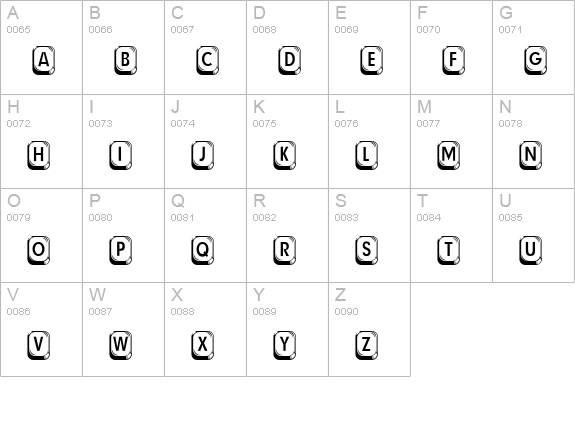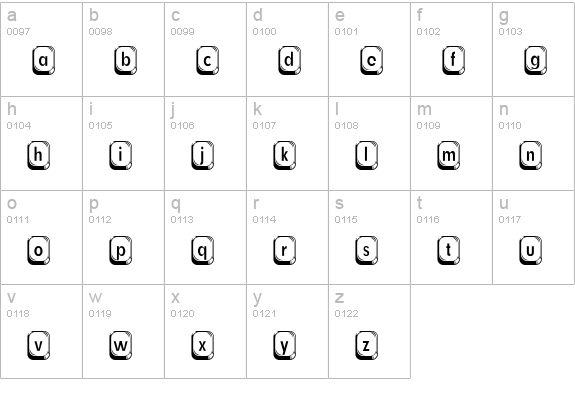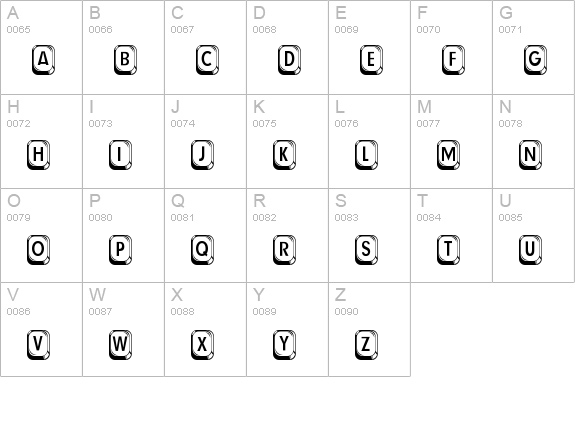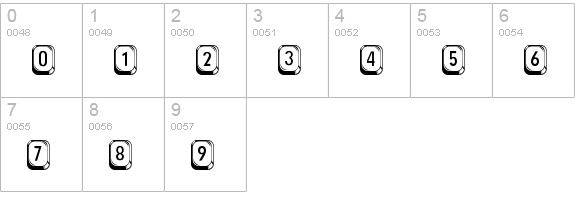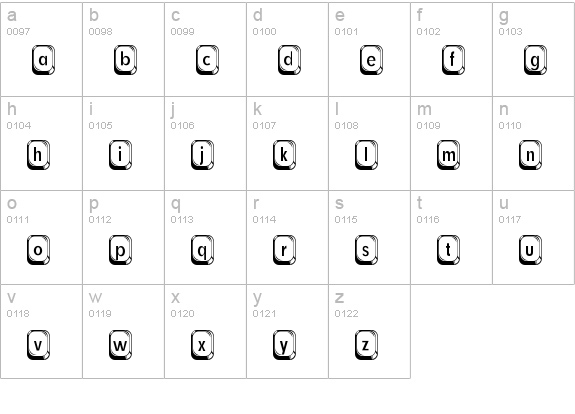
Betsy Flanagan Font Details
Betsy Flanagan font exudes a charming vintage appeal with its elegant curves and classic lines. This versatile typeface is perfect for projects that require a touch of sophistication and nostalgia. Its timeless design makes it suitable for a wide range of applications, from invitations and greeting cards to branding and packaging. Best of all, Betsy Flanagan font is completely free to download at FontsMarket.com. Whether you're a seasoned designer or just starting out, this font is sure to add a touch of timeless elegance to your projects. Don't miss out on the opportunity to enhance your designs with this beautiful and versatile typeface. Download Betsy Flanagan font today and let your creativity soar!